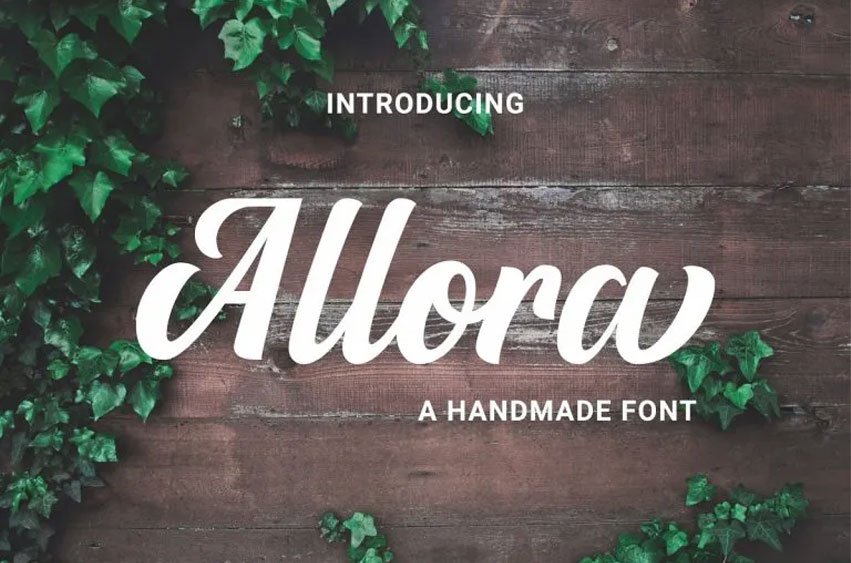
Allora Script Font
Allora Script Font was created by WesleyBarnes, it is a premium font that you can buy on creativemarket but today for free download. Allora Script Font is a formal script font that has been hand made and enables you to create brush pen script instantly. It is ideal for Logos, Letterheads, Advertisements, Posters and many more!